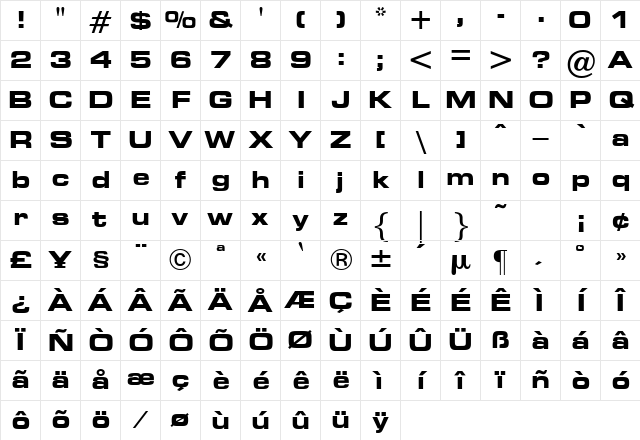
EddmondBold Regular
Design Context for EddmondBold
EddmondBold is a composed and adaptable typeface that performs quietly and consistently across a wide range of design contexts. Its bold stroke weight gives it real presence on the page.